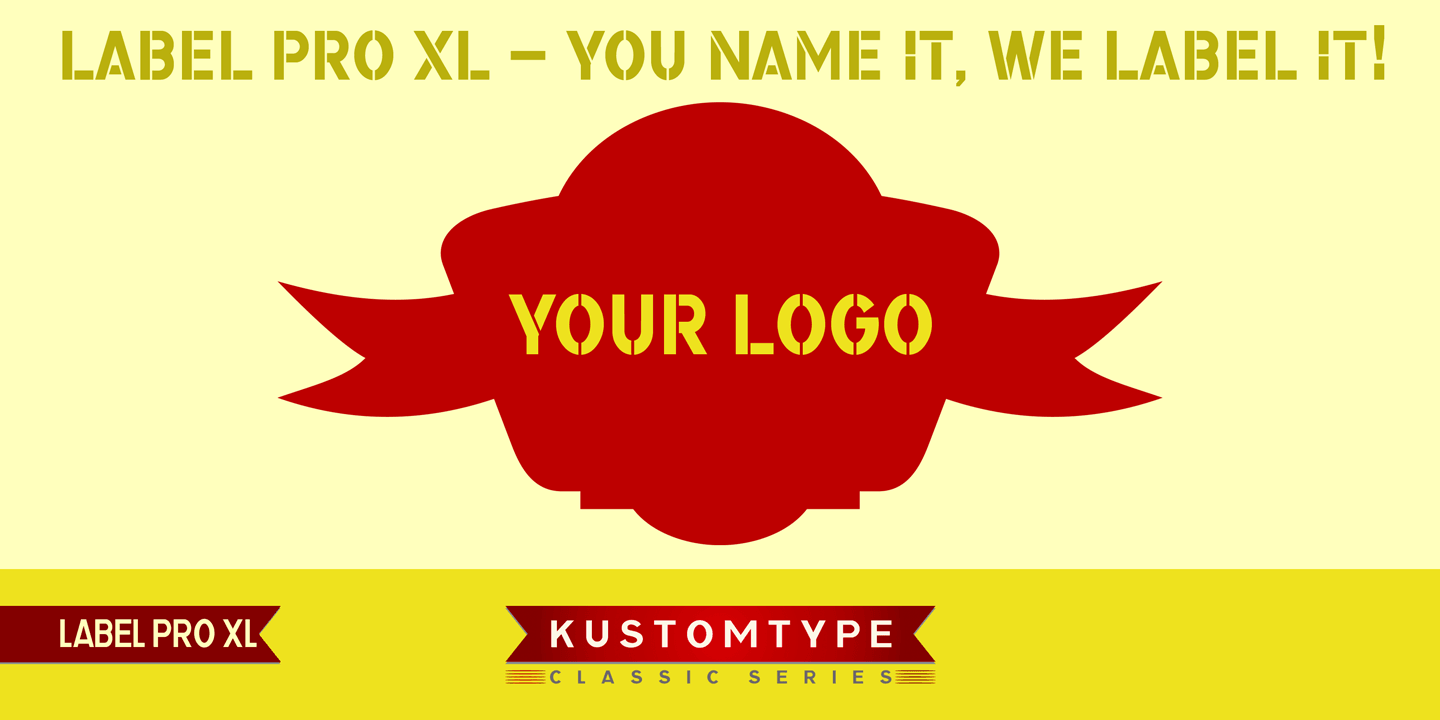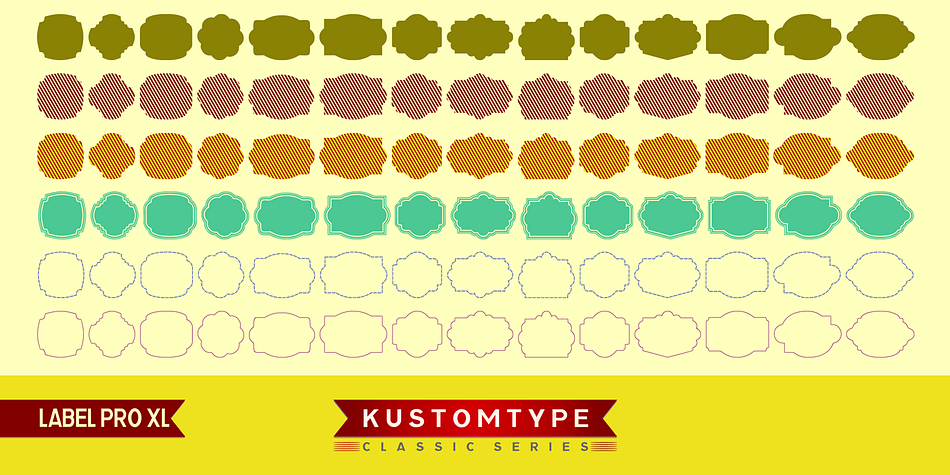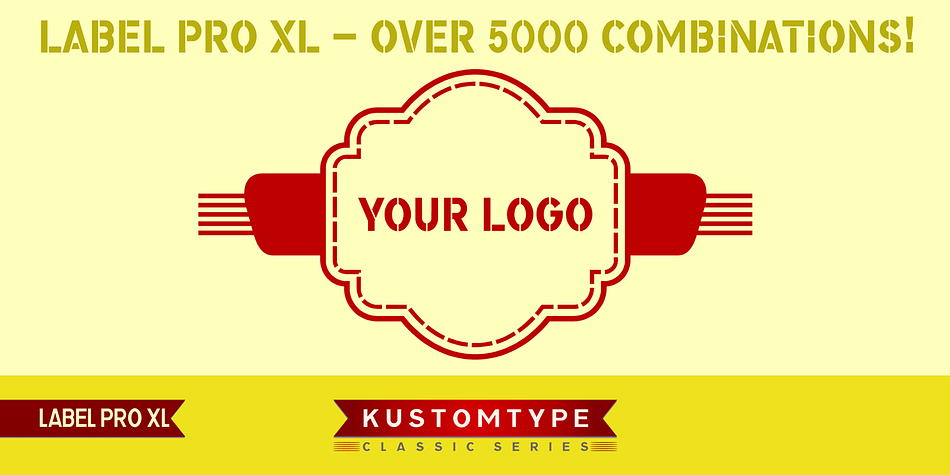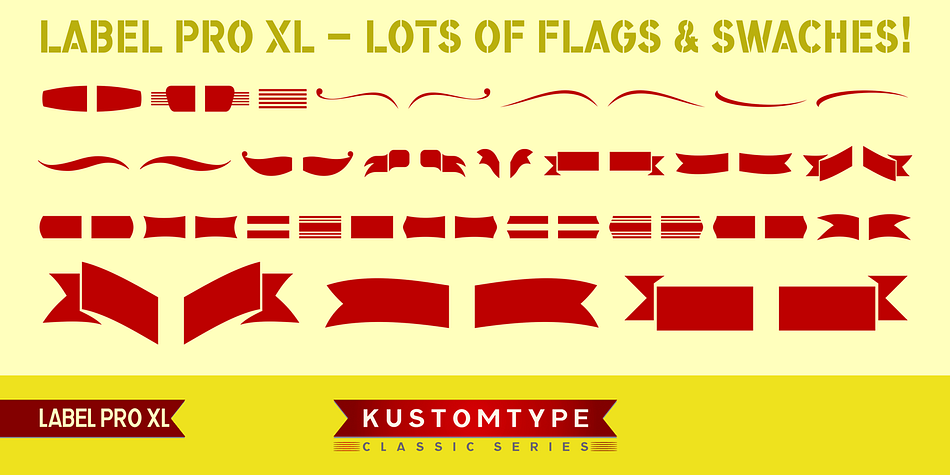
Label Pro XL is a dingbat font family. This typeface has twelve styles and was published by Kustomtype.
LABEL PRO XL is a high-quality font collection of modern, classic and vintage labels developed especially for creative entrepreneurs. Most powerful for headings and titles, this font excels in its handcrafted accuracy. Containing more than 150 glyphs, LABEL PRO XL is an easy-to-use ally for numerous business sectors, such as food and beverages, B2B and B2C sales, stamps, woodprints, etc. It offers you a quick & easy solution for all vector designs and application software, and contains twelve different styles, loads of combinations and cool flags.